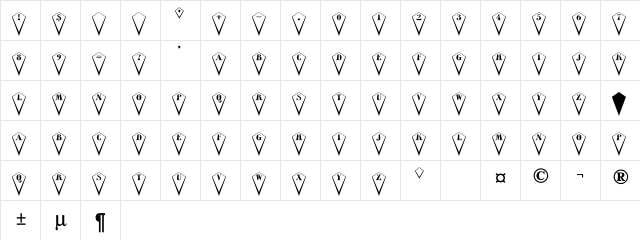
a_RombyOtlDn3D Regular Font Preview
a_RombyOtlDn3D Regular
a_RombyOtlDn3D Regular Font Details
Design Context for a_RombyOtlDn3D Typeface
a_RombyOtlDn3D is a composed and adaptable typeface that performs quietly and consistently across a wide range of design contexts.